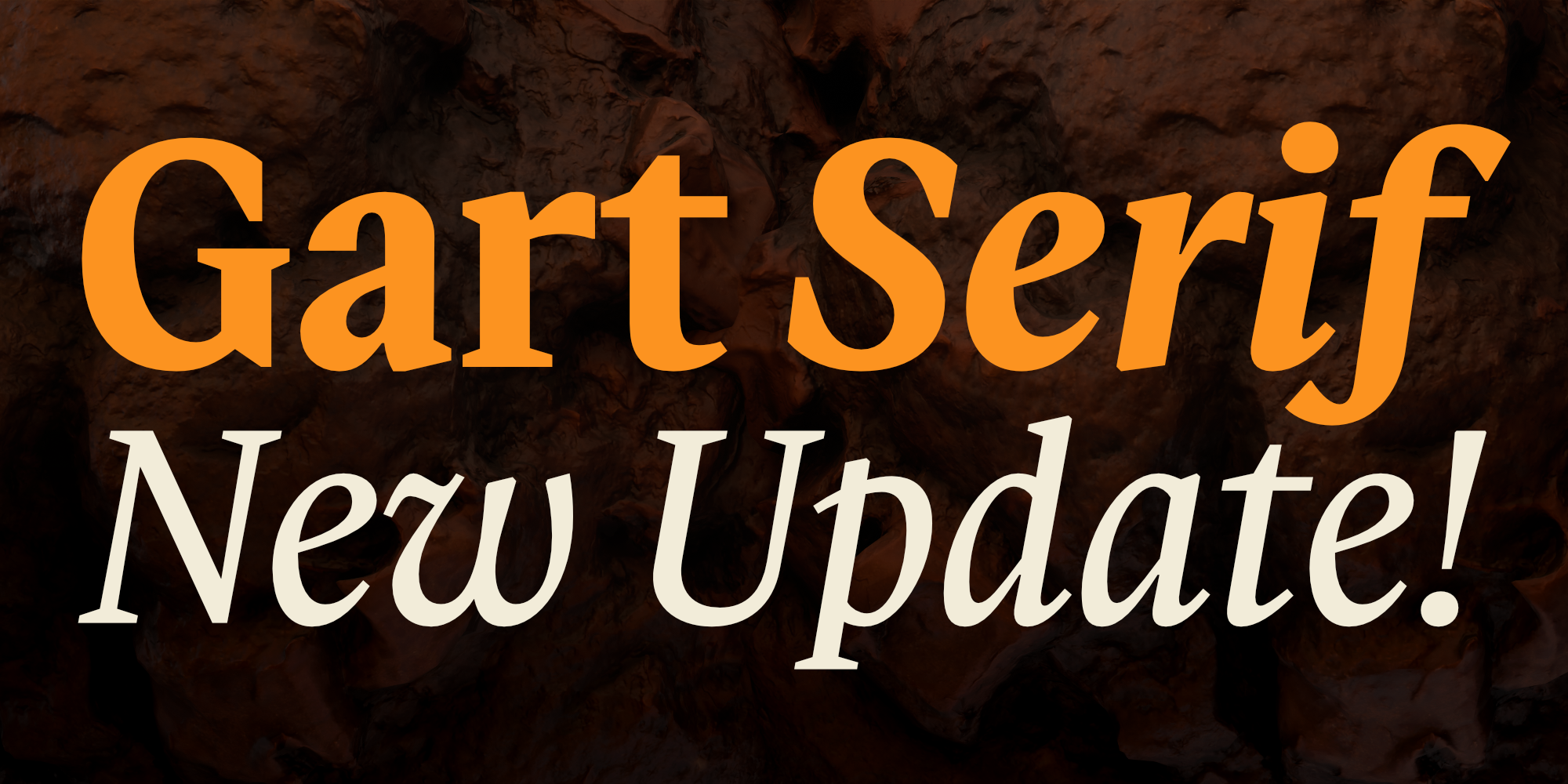
Gart Serif Font is perfect for book publishing, academic journals, newspaper layouts, literary magazines, legal documents, financial reports, traditional corporate identities, educational materials, prestigious certificates, and sophisticated editorial designs. This classic typeface excels in projects that require authority, readability, and timeless professional appeal.
What makes Gart Serif Font exciting is its exceptional ability to combine traditional serif elegance with contemporary functionality through carefully refined letterforms that honor typographic heritage while meeting modern communication needs. The font features classical proportions, refined serifs, and optimized character spacing that create excellent readability across all media formats. Its authoritative personality captures the essence of scholarly tradition while maintaining contemporary relevance, making it perfect for brands that want to communicate expertise, reliability, and intellectual credibility.
Gart Serif Font includes comprehensive font families such as Regular, Bold, Light, Italic, Semi-Bold, and Display variants. Each family member maintains the distinctive serif character while providing different weights and stylistic approaches to create sophisticated typography hierarchies and versatile editorial design solutions.
This premium serif typeface serves as an outstanding choice for designers working in publishing, education, and professional services sectors. Gart Serif Font Free Download provides exceptional value for publishers, educators, and creative agencies specializing in traditional yet contemporary visual communication. The font's scholarly appeal makes it particularly suitable for academic publications, legal communications, financial documentation, and prestigious institutional branding.
Whether you're developing brand identity for educational institutions, creating editorial layouts for publications, or designing professional documentation for corporate clients, Gart Serif Font delivers the perfect combination of classical authority and modern functionality that establishes immediate credibility and professional excellence.